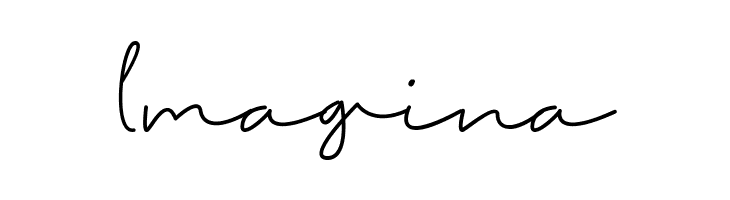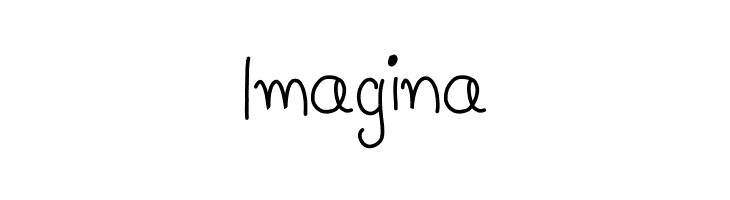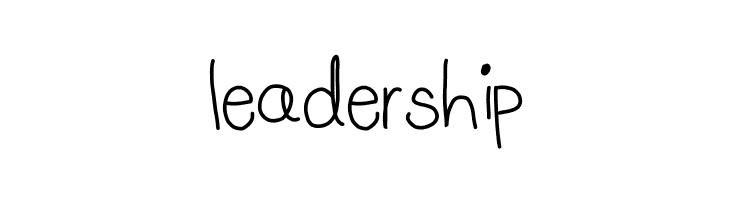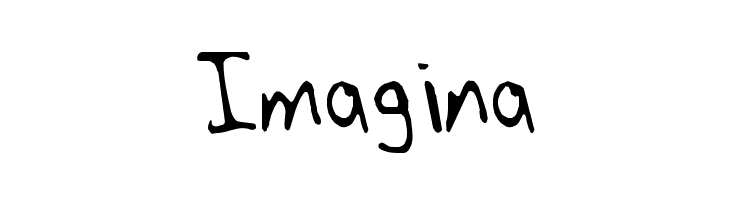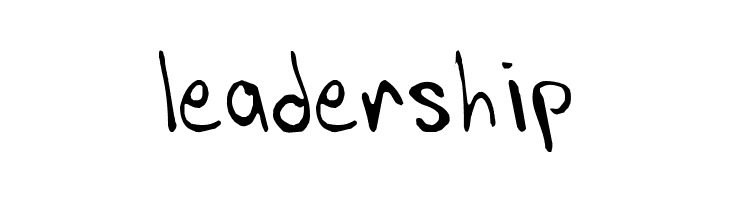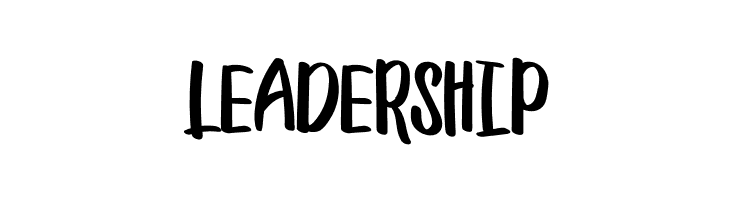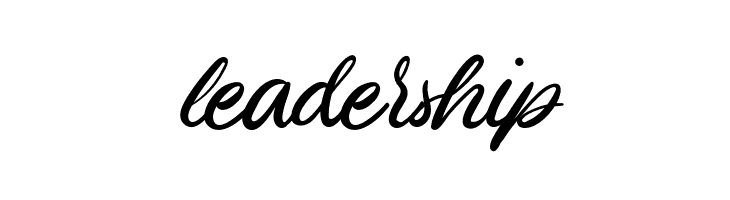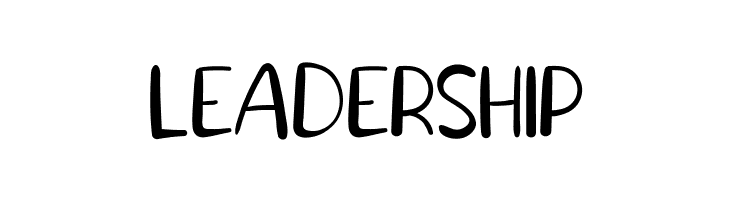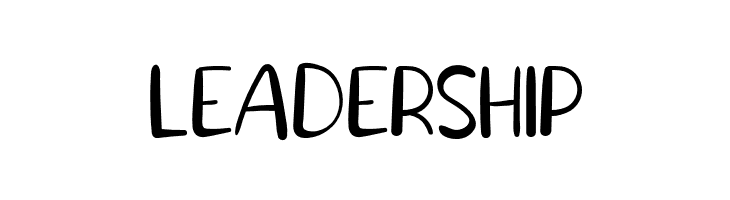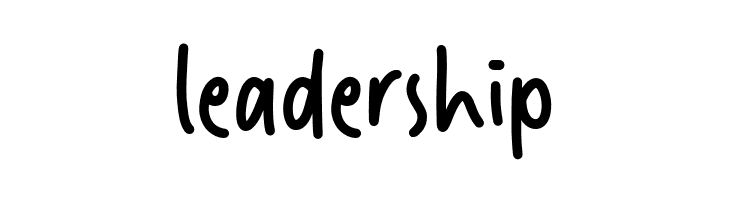
( Fonts by 97Designs )
A playful, rounded font with consistent strokes and slight irregularities for a casual look.
( Fonts by Abo Daniel Studio )
Handwritten script font with a playful, casual style.
( Fonts by PsyTech - 4LR.mmdc - Roberto Tifi )
A modern, artistic font with geometric and calligraphic elements.
( Fonts by PsyTech - 4LR.mmdc - Roberto Tifi )
A modern script font with elegant curves and dynamic character design.
( Fonts by Vunira Design )
A playful, hand-drawn sans-serif font with a modern and friendly appearance.
( Fonts by Vunira Design )
A lively, cursive script font with bold, interconnected strokes.
( Fonts by Vunira Design )
A playful, handwritten-style font with bold, rounded characters.
( Fonts by Vunira Design )
A lively, cursive script font with fluid, connected strokes and varying thickness.
( Fonts by Regulerstudio )
A bold, playful handwritten font with a casual and friendly style.
( LukiPukii )
A casual, handwritten-style font with rounded, consistent strokes.
( Fonts by Erin Manning )
A playful, handwritten font with thin, flowing strokes and a whimsical style.
( Fonts by marunstudio )
A playful handwritten font with rounded, casual letterforms.
( Fonts by Alpaprana Studio )
A playful, casual handwritten font with smooth, rounded edges.
A playful, casual handwritten font with smooth, flowing lines and a friendly appearance.
( Fonts by Carolina Valtuille )
A playful, handwritten font with rounded edges and an informal style.
( Fonts by Ylva Winter )
A playful, casual handwritten font with a whimsical and informal style.
( Fonts by Alexa )
Playful handwritten font.
A fluid and elegant handwritten font with smooth, continuous strokes.
A playful, bold handwritten font with rounded, uniform letterforms.
( Fonts by Andarina )
Casual handwritten font with rounded, playful forms.